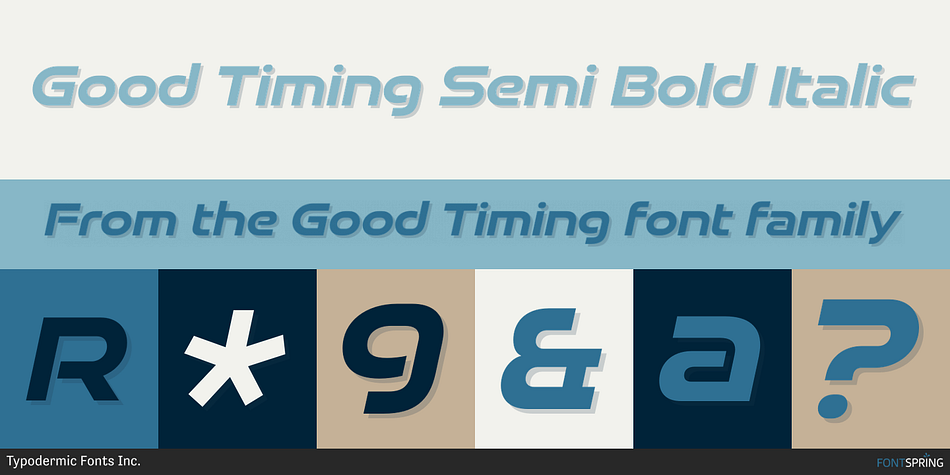
Good Timing Semi Bold Italic
Designed by Ray Larabie, Good Timing is a display sans font family. This typeface has fourteen styles and was published by Typodermic Fonts Inc.
The perfect typeface for the modern age has arrived. Good Timing is the ultimate fusion of style and substance, taking the best of the classic Good Times typeface and elevating it to a new level of cool.
The wide, capsule-shaped design of Good Timing makes it stand out from the crowd, giving your text an edgy, high-tech vibe. And with its seven weights, including italics, you’ll have all the flexibility you need to create eye-catching designs that are sure to grab attention.
But that’s not all—Good Timing also comes packed with all the symbols and characters you need for any project. Mathematical symbols, fractions, numeric ordinals, and monetary symbols are all in good supply, so you’ll never be left searching for the right character.